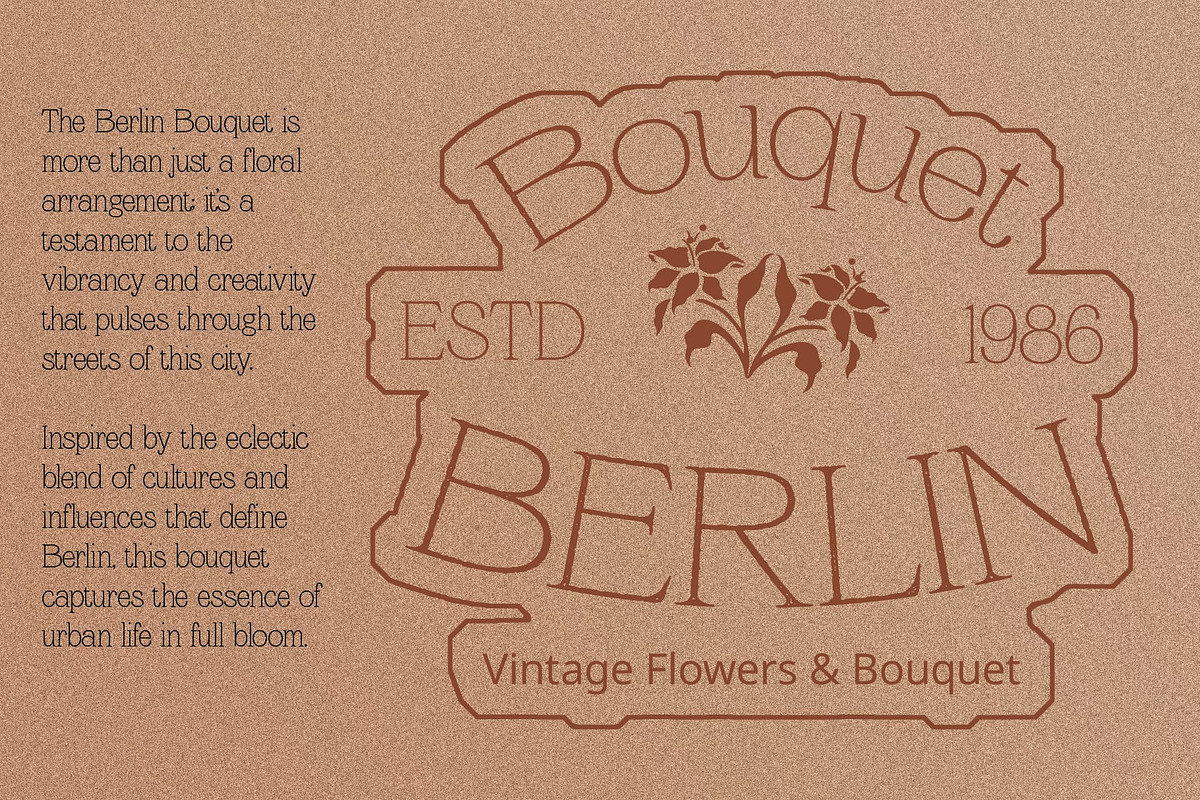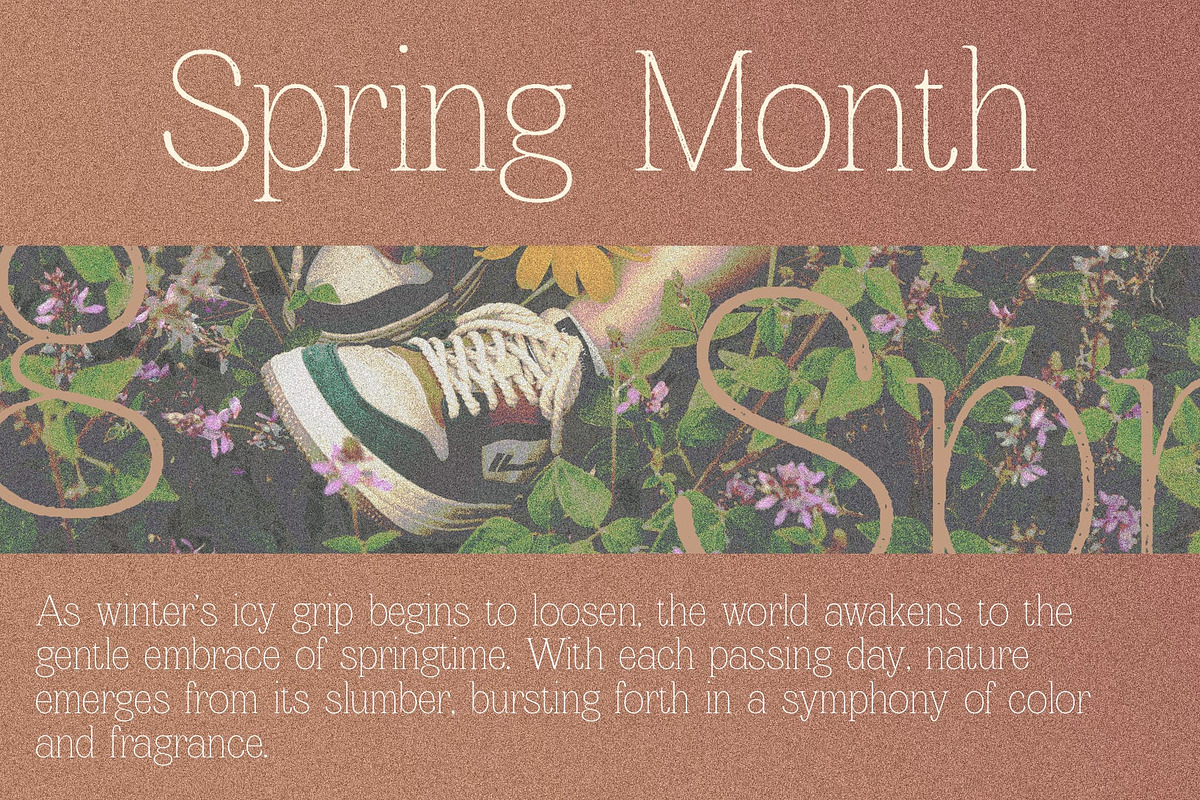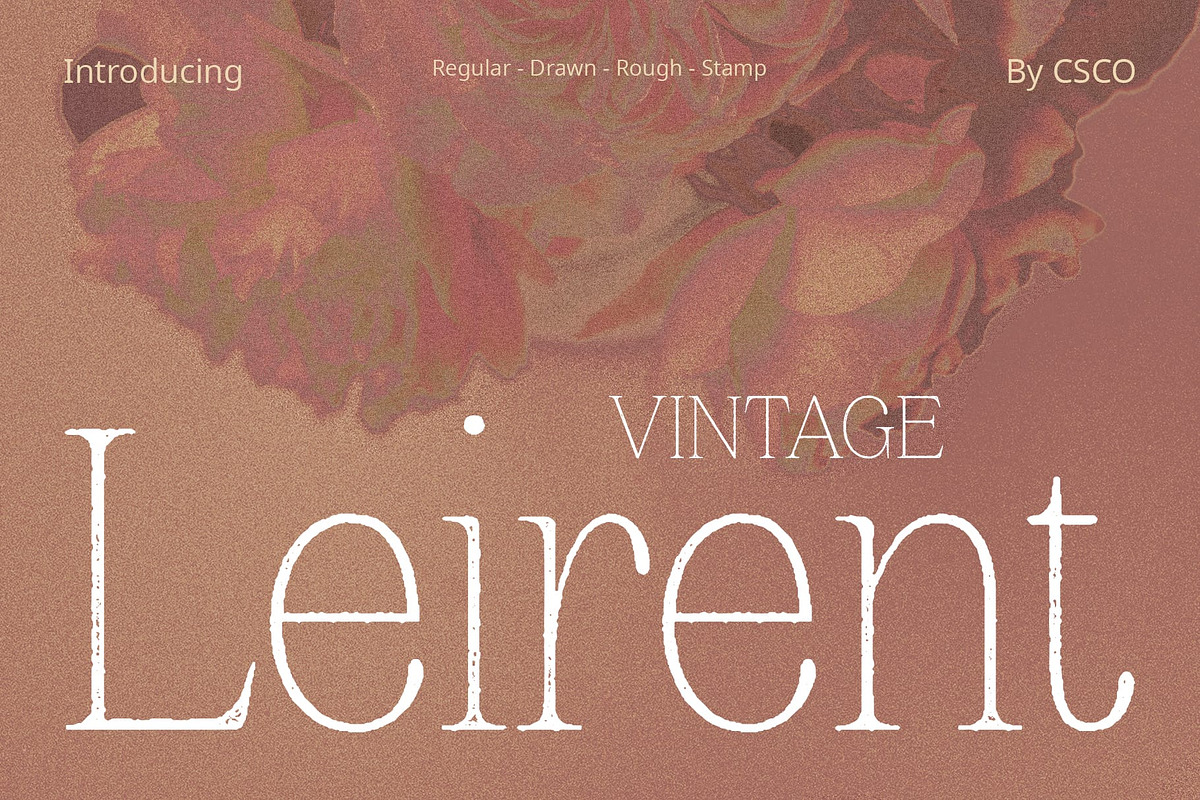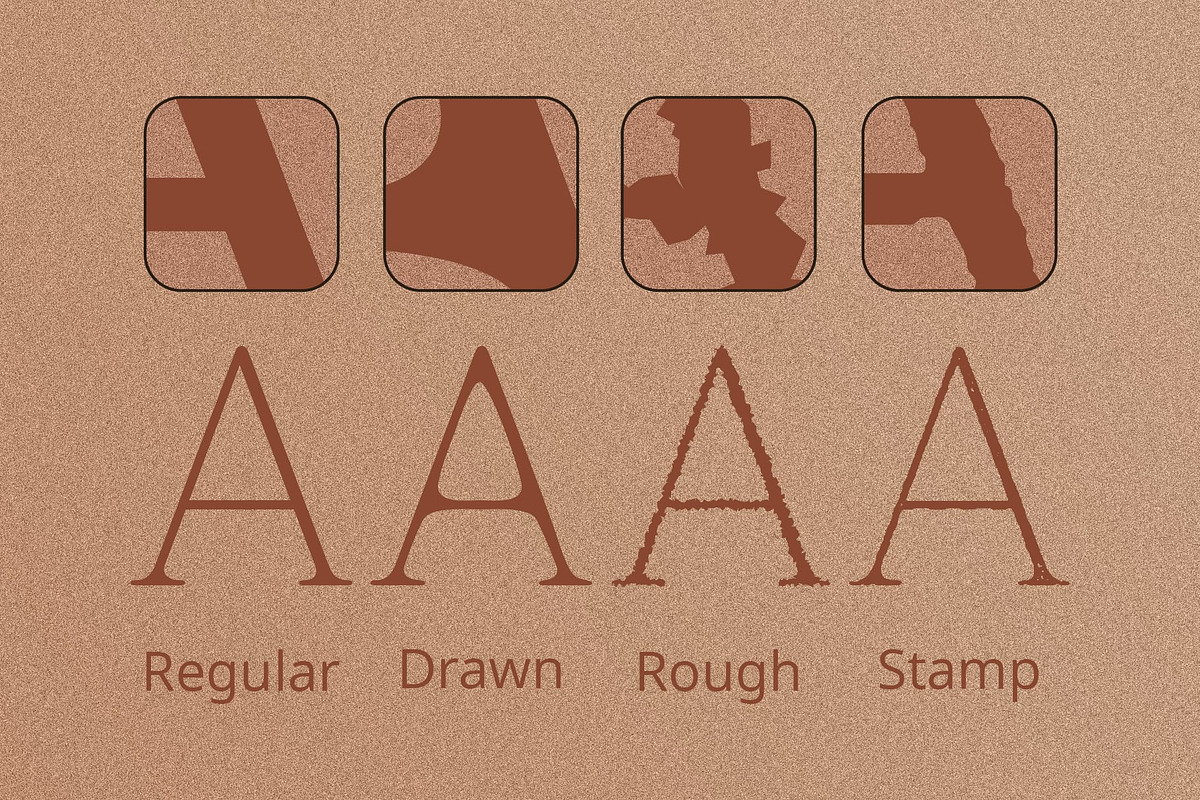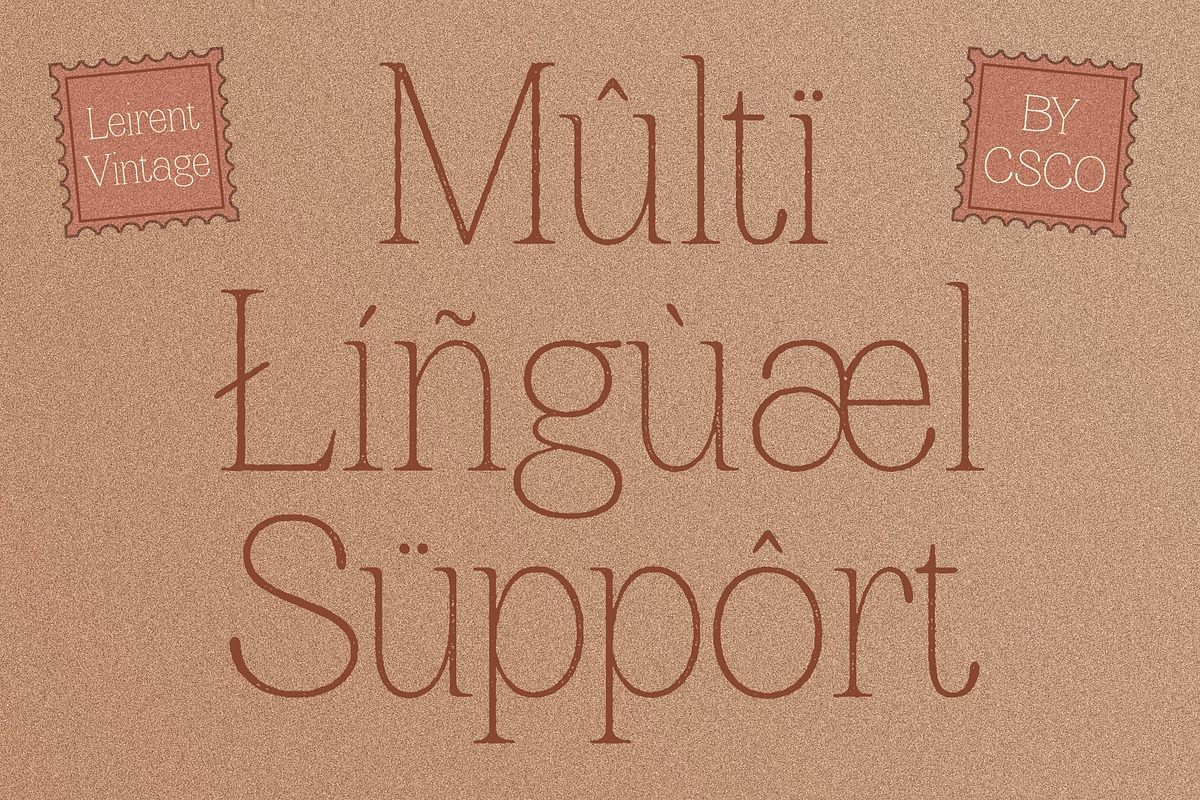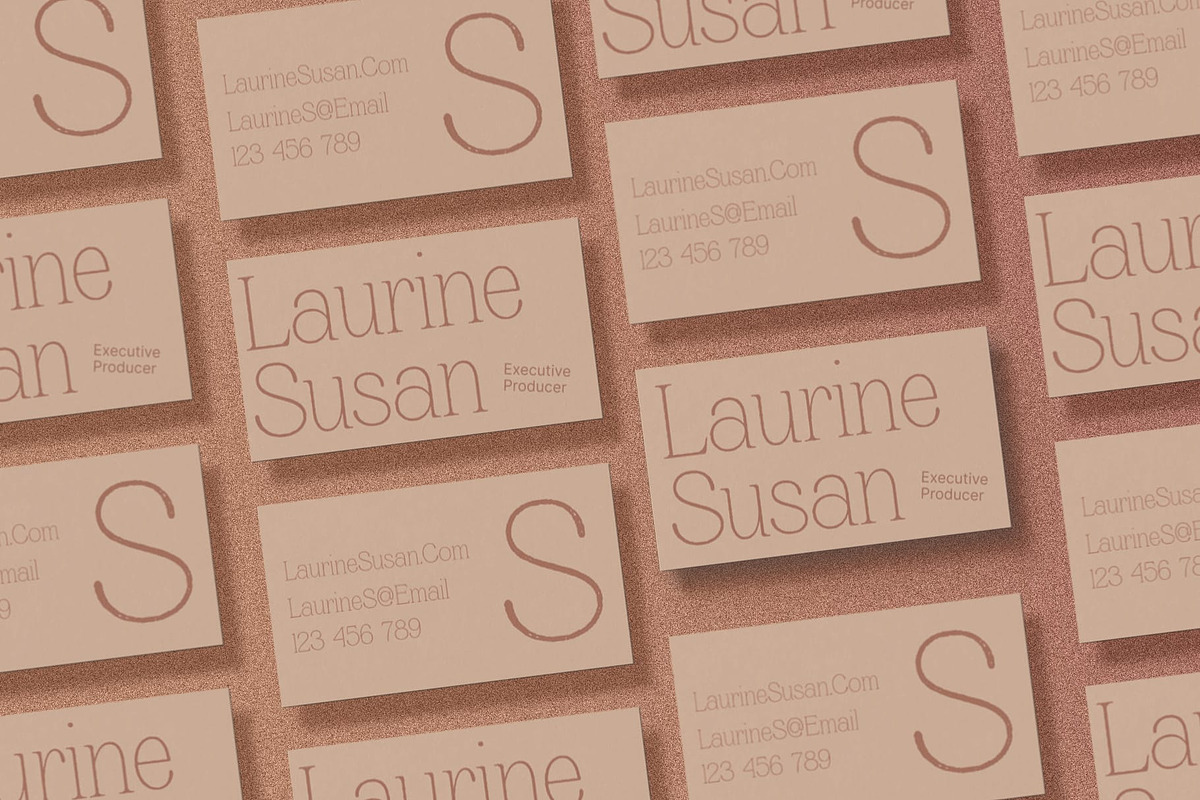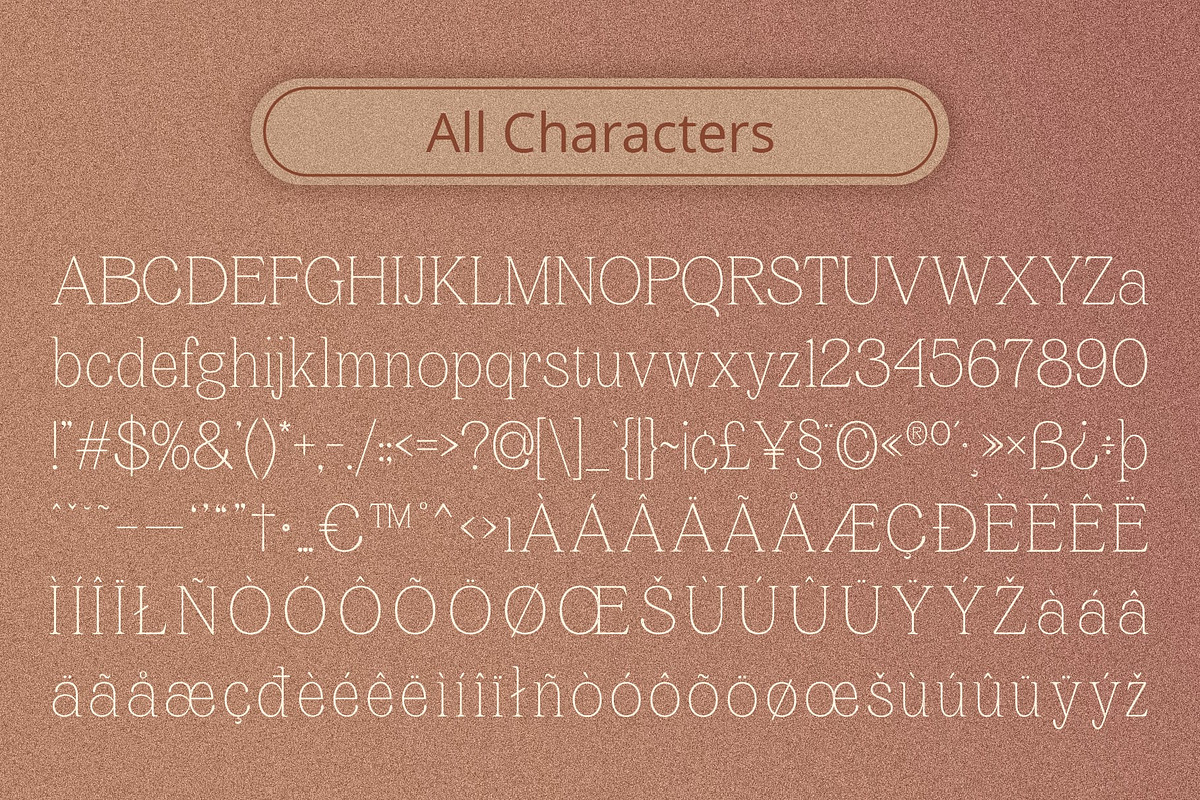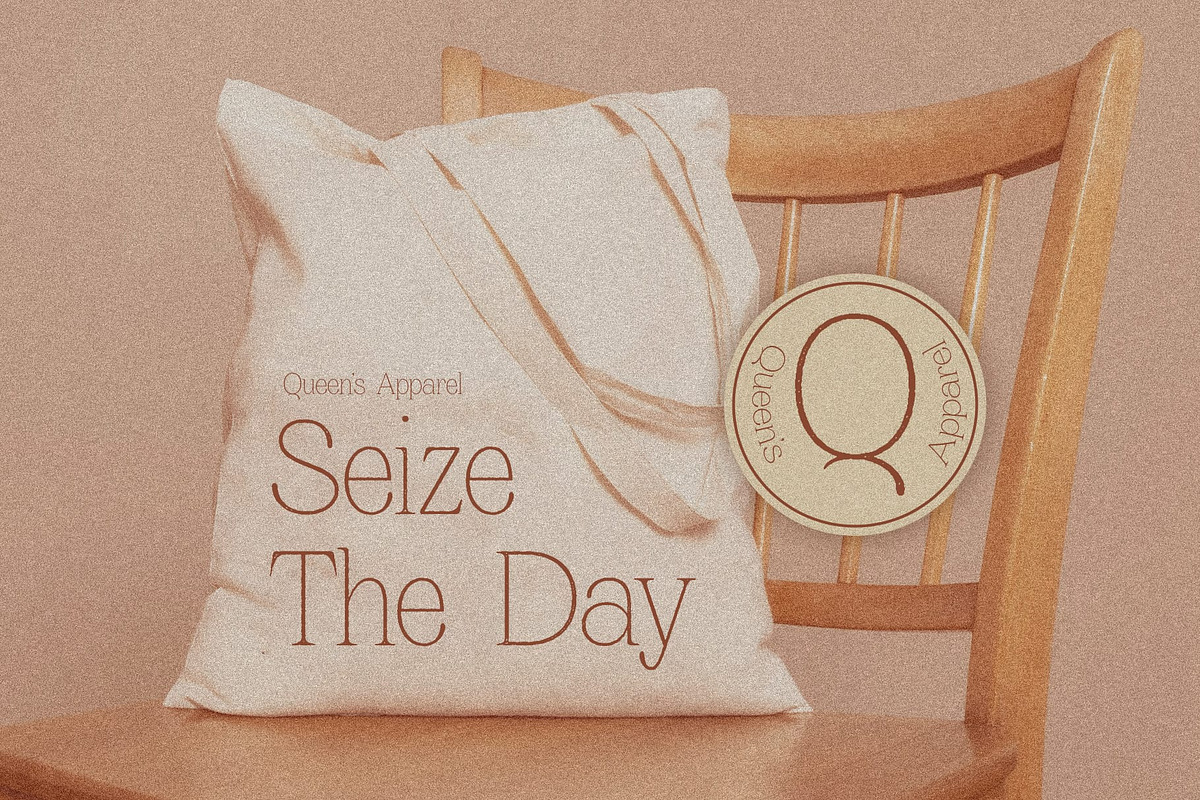
Leirent Vintage
Leirent Vintage: Embodying the Essence of Vintage Typography
Classic Serif Design Leirent Vintage epitomizes the essence of classic serif typography, boasting a refined structure that lends itself perfectly to a myriad of display projects. With its timeless appeal, it adds a touch of sophistication to any design endeavor.
Moderate Contrast, Thin Strokes Delving deeper into its design, This font showcases a harmonious blend of moderate contrast and delicate, thin strokes. This meticulous balance contributes to its overall elegance and refinement, ensuring each character exudes a sense of grace and poise.
Rough Stamp Drawn Effect What truly sets This font apart is its captivating rough stamp drawn effect. This unique aesthetic imbues the font with an irresistible vintage charm, evoking feelings of nostalgia and authenticity. Each letter appears handcrafted, adding character and depth to every word.
Perfect for Vintage Vibes Tailored for projects seeking to evoke vintage vibes, This font excels in branding, packaging, and editorial design. Whether adorning product labels or gracing magazine covers, it effortlessly transports audiences to a bygone era, infusing projects with a timeless allure.
Testament to Timelessness This font stands as a testament to the enduring allure of vintage typography. From its classic serif design to its captivating rough stamp drawn effect, every aspect of this font exudes timeless elegance and charm, making it a quintessential choice for any design endeavor seeking to evoke nostalgia and sophistication.
- Leirent Regular
- Leirent Drawn
- Leirent Rough
- Leirent Stamp